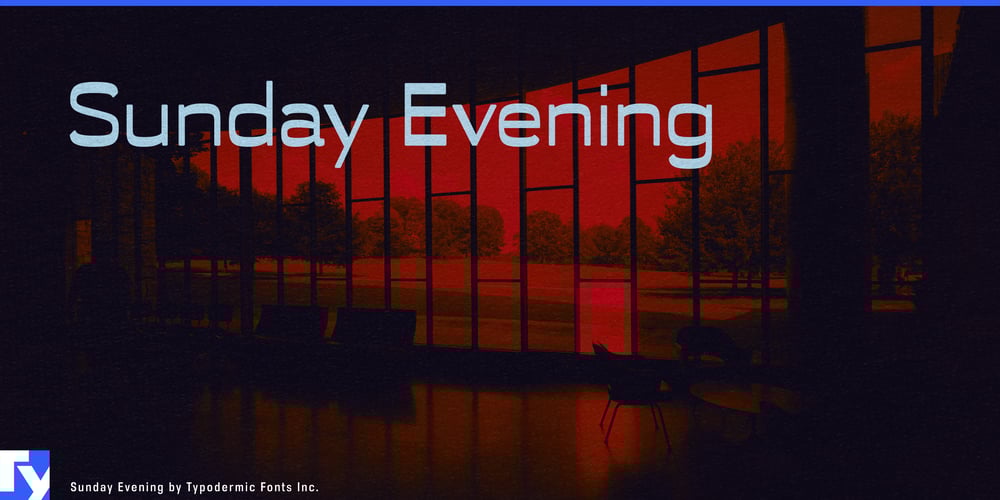
Sunday Evening Font Family was designed by Ray Larabie and published by Typodermic. Sunday Evening contains 1 styles and family package options. Sunday Evening is a typeface that soars above the ordinary, much like a plane ascending into the golden hues of dusk. This stunning display font navigates the delicate balance between vintage charm and modern precision, creating a visual experience as smooth as a perfectly executed landing.With its squarish letterforms and high-tech superelliptical style, Sunday Evening charts a course through design space that’s anything but turbulent. The reverse contrast of this soft sans-serif typeface acts like the unexpected beauty of runway lights at twilight—captivating and functional in equal measure. Its high waistlines and curving ends echo the graceful arcs of aircraft wings, while the elegant technical letterforms evoke the precision of air traffic control systems. Sunday Evening’s versatility is its passport to design success. From airport signage to in-flight magazines, this typeface transitions seamlessly across applications, much like travelers moving effortlessly through well-designed terminals. The font’s support for a wide range of Latin-based European and some Cyrillic-based writing systems ensures your message reaches a global audience, crossing linguistic borders as easily as international flight paths.The typeface’s hidden treasures—adorable heart symbols accessed by typing [heart1], [heart2], and so on—add a touch of warmth to your designs. These subtle embellishments are like those small, thoughtful amenities that make a long journey more pleasant, transforming the functional into the delightful. Choose Sunday Evening when your project needs to take flight. Whether you’re designing for luxury travel brands, creating wayfinding systems, or crafting communications that bridge distances, this typeface will elevate your message with the elegance of a first-class journey and the reliability of a seasoned pilot.In the ever-changing skyscape of typography, Sunday Evening is your constant North Star—a beacon of style that guides your designs to new heights. It doesn’t just display text; it transports your audience on a visual journey, inviting them to experience the sophistication and adventure of travel, even as they remain grounded in your message.Embark on your next design voyage with Sunday Evening, and watch as your creations take off, leaving the mundane far below and soaring into realms of timeless style and global communication.